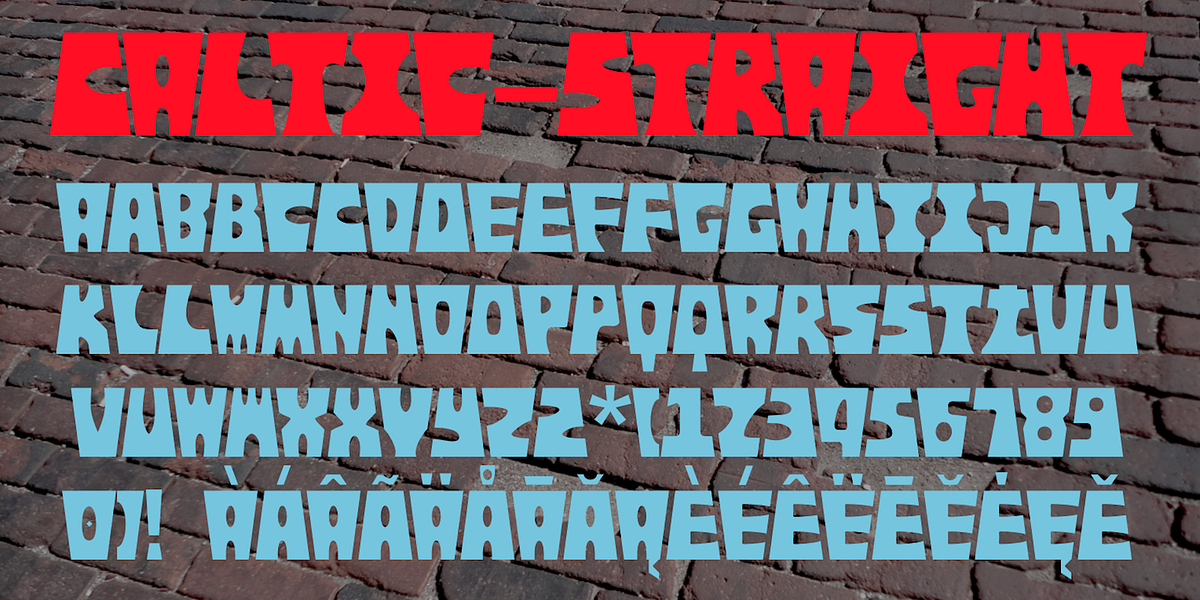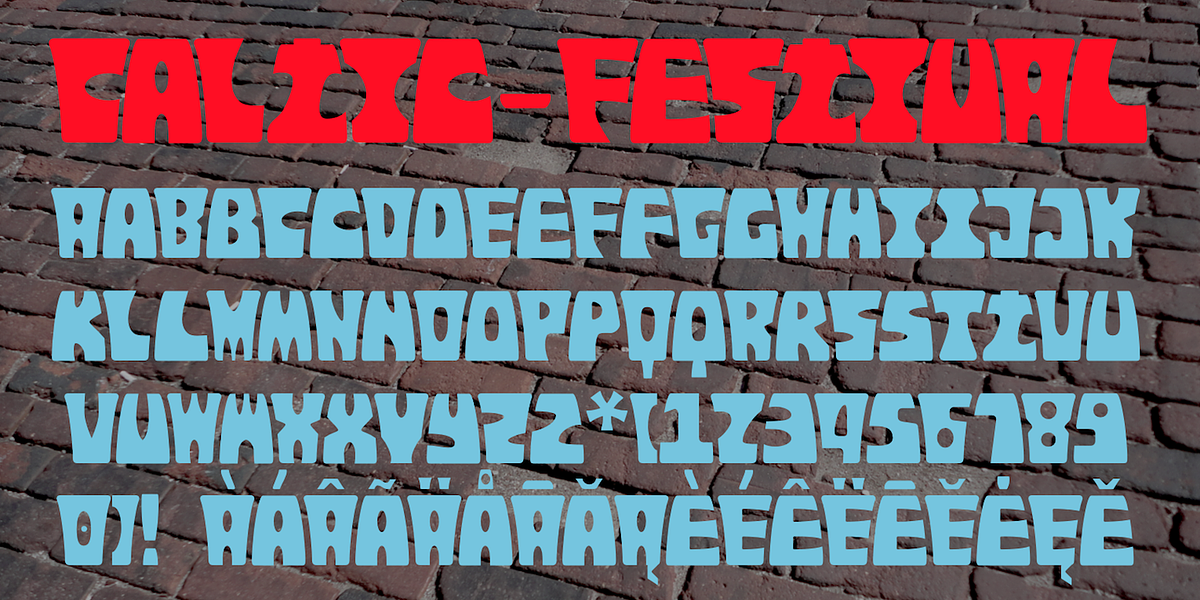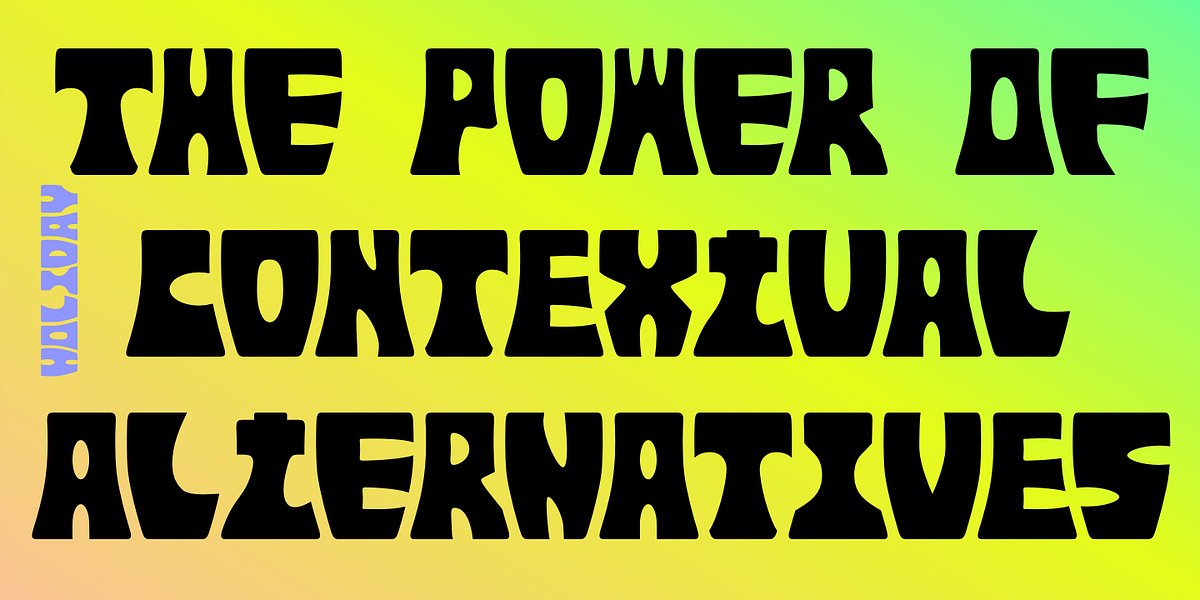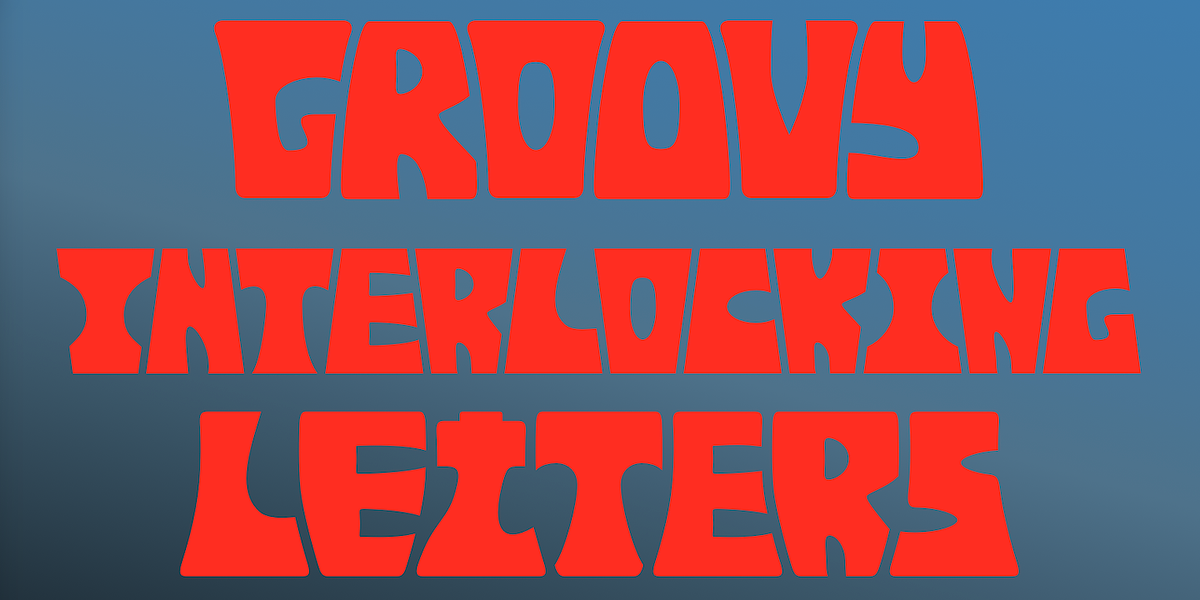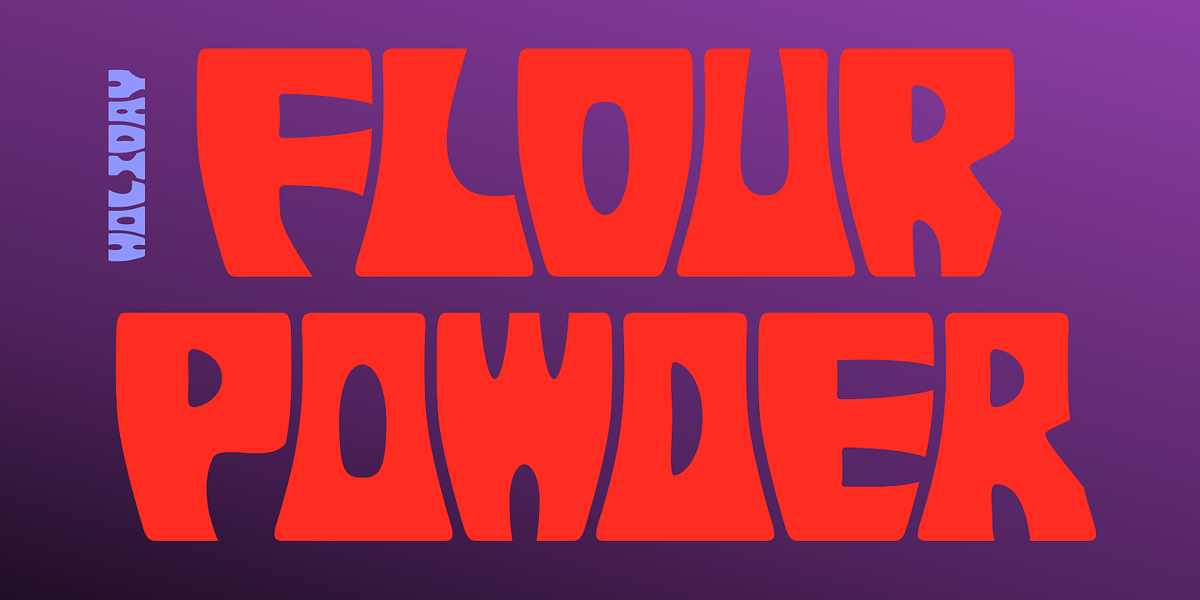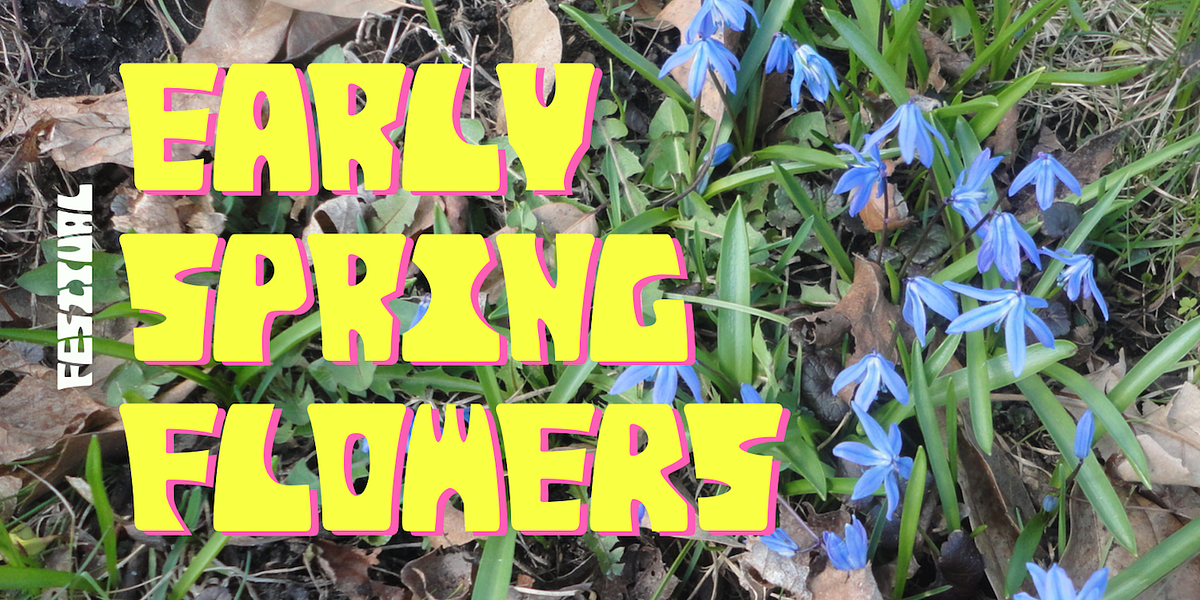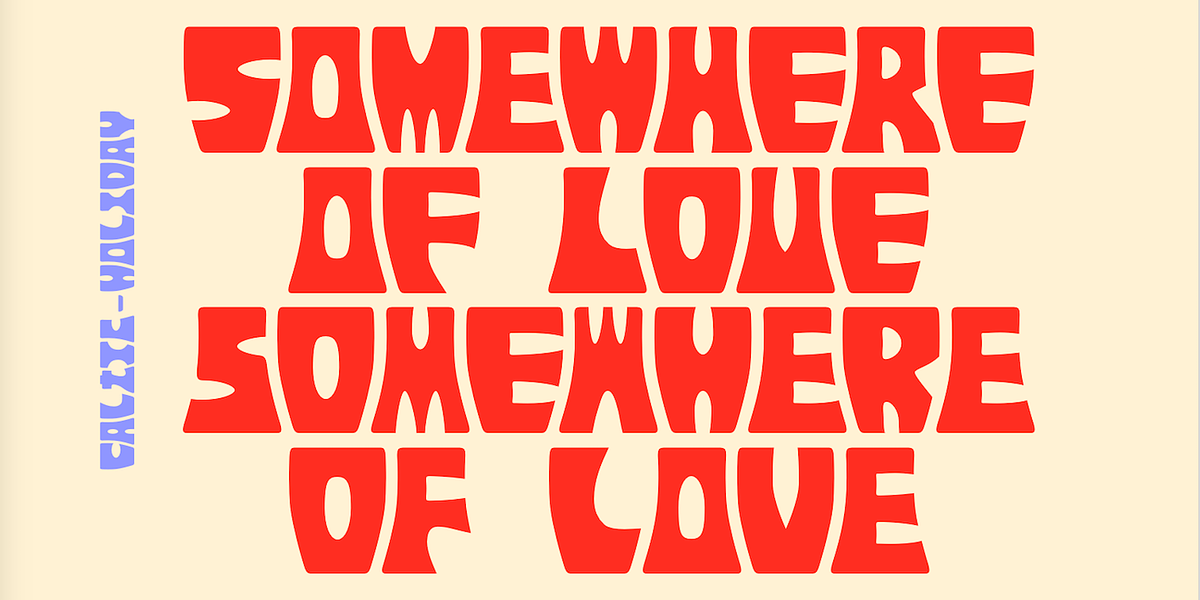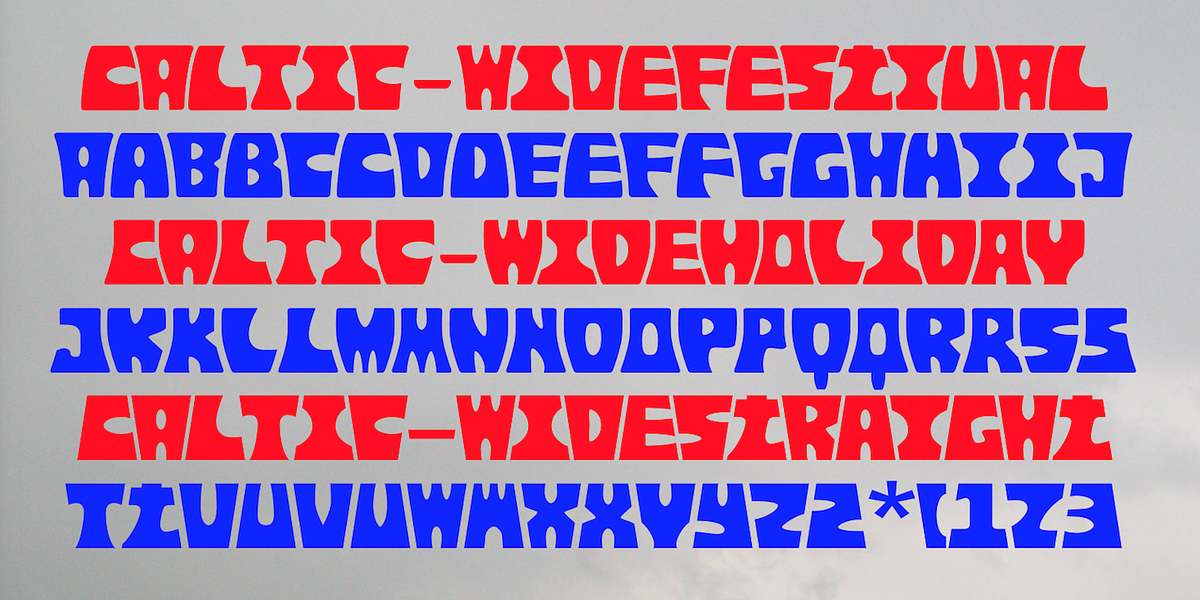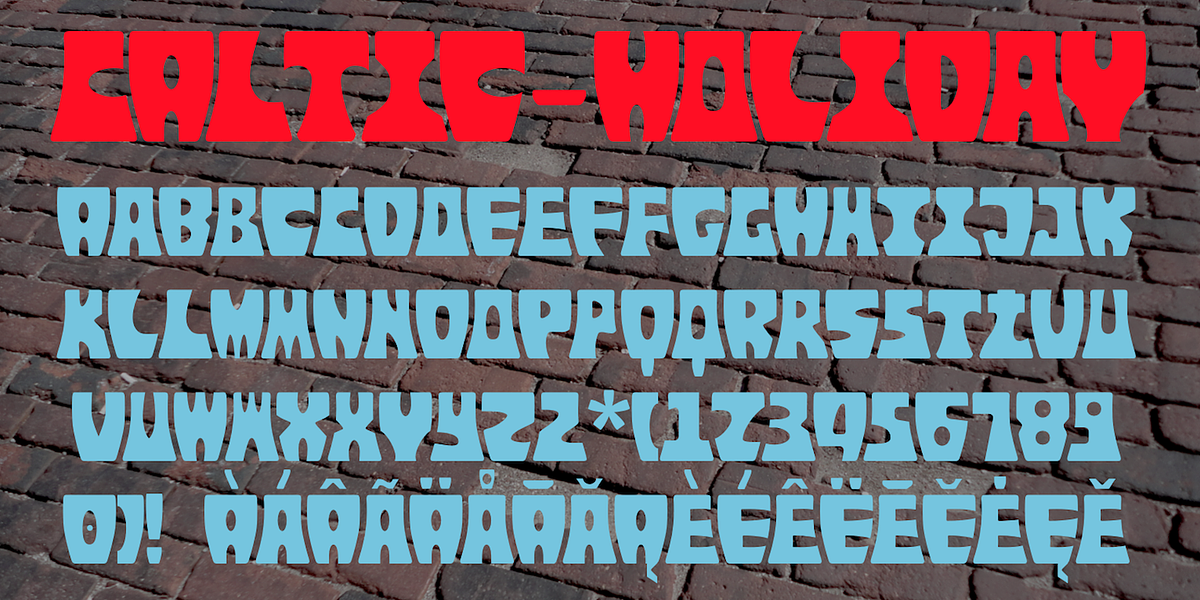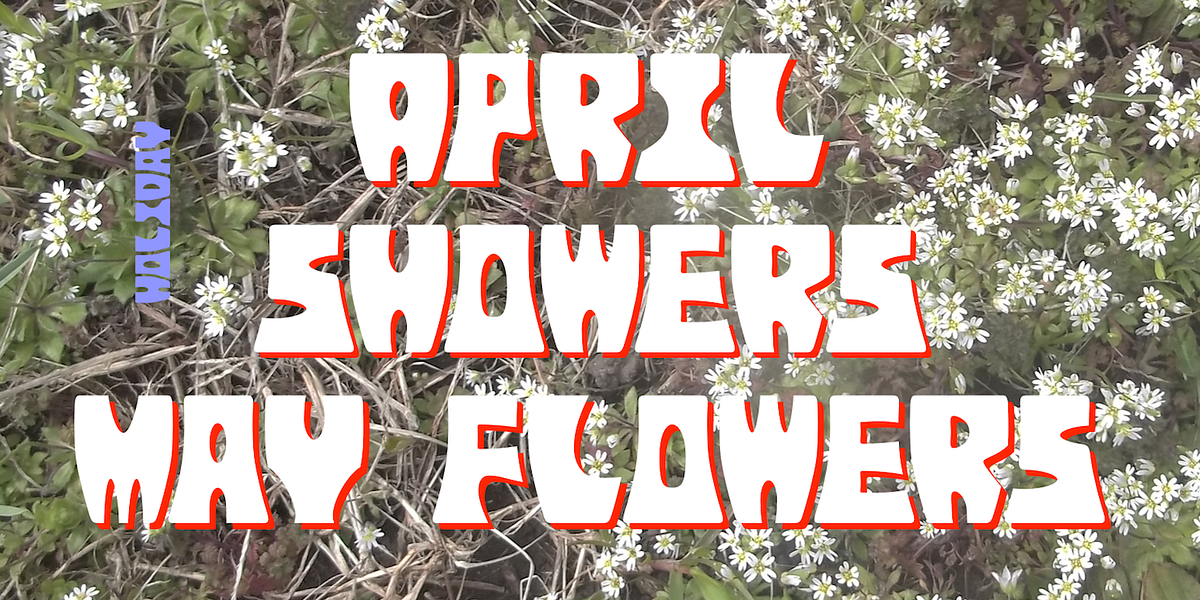
Caltic
The Caltic typeface family is a bold and eye-catching display font inspired by hand-drawn lettering from the 1960s and 1970s. Its unique design features interlocking letters based on trapezoidal shapes with curved or straight sides, depending on the variation (Caltic-Holiday, Caltic-Festival, or Caltic-Straight). The typeface is specifically designed for all-caps usage in applications like posters and signage. It leverages the contextual alternatives OpenType feature to ensure seamless letterfitting, automatically alternating upper and lowercase letters for a cohesive look.